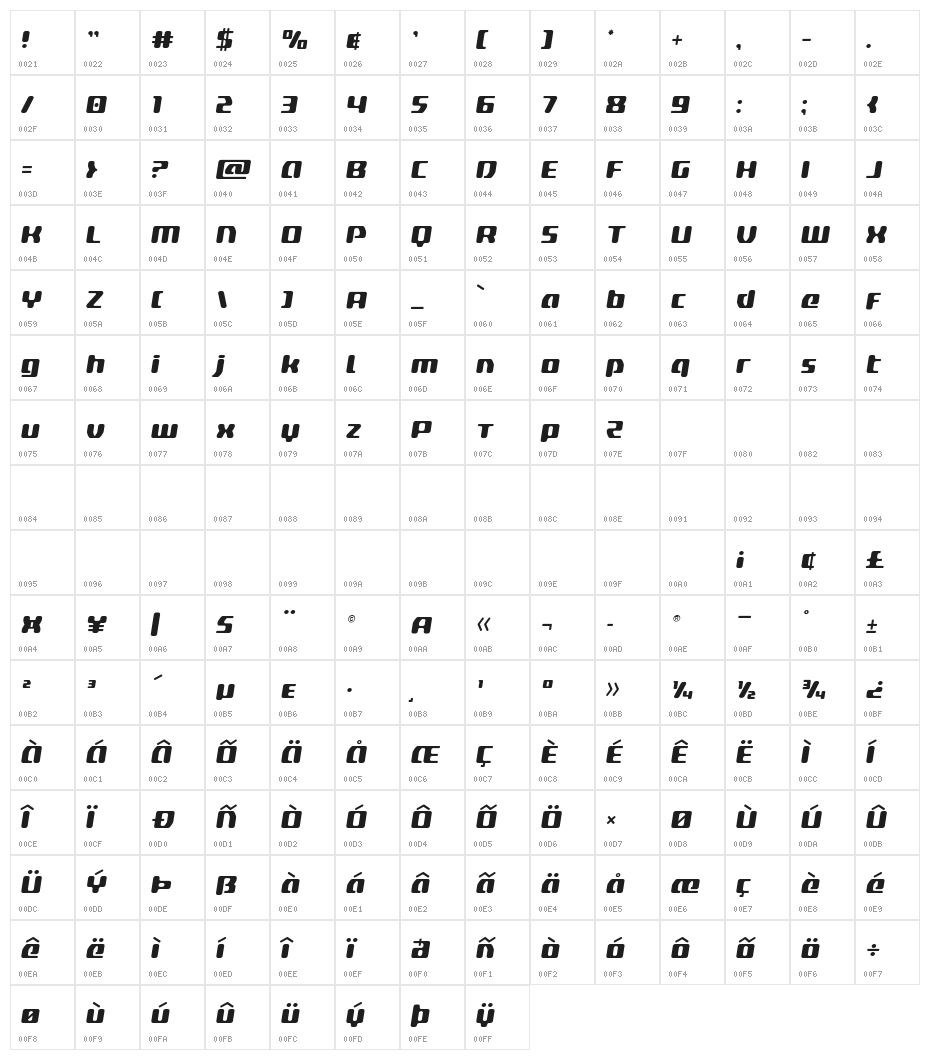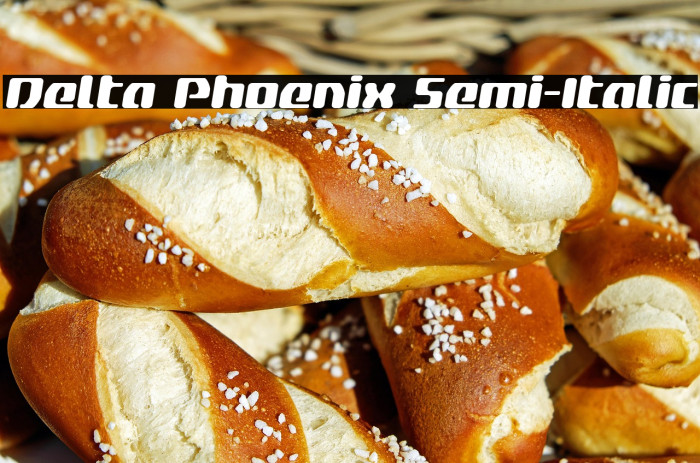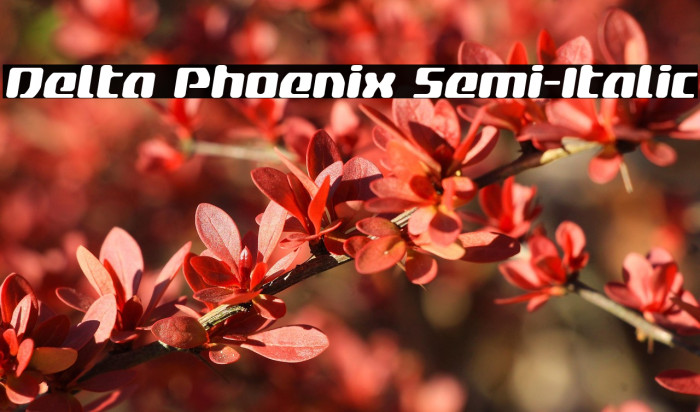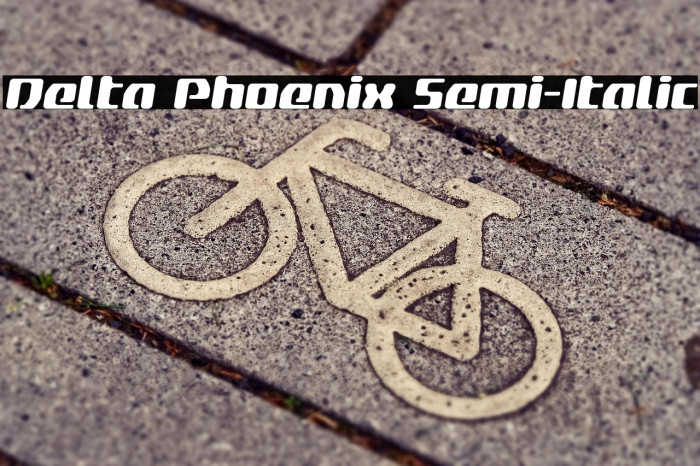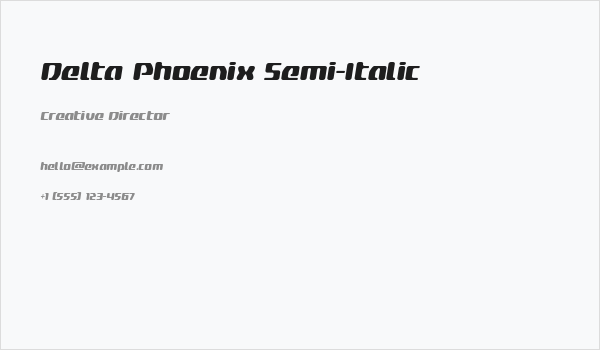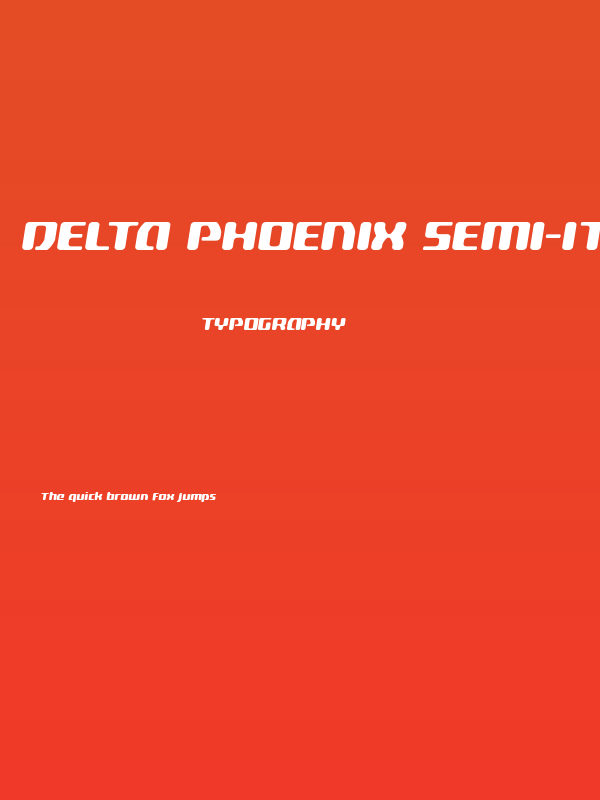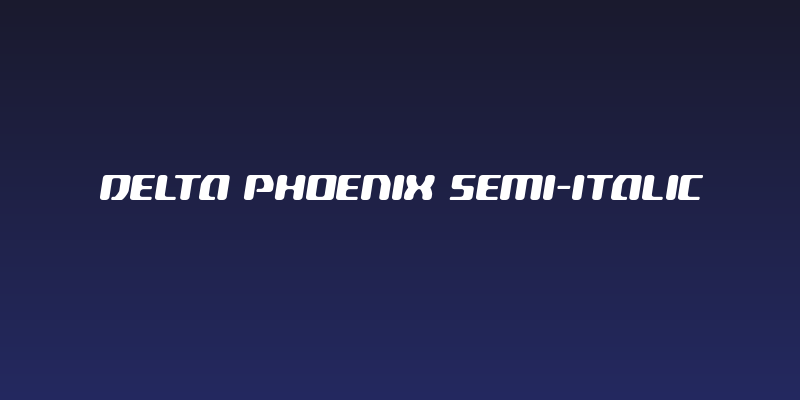
Delta Phoenix Semi-Italic Font
Delta Phoenix Semi-Italic Description
This typeface exhibits a bold and dynamic style with a semi-italic slant, giving it a sense of motion and energy. The characters are rounded with smooth curves and a consistent stroke width, contributing to a modern and sleek appearance. The uppercase and lowercase letters maintain a uniform height, enhancing readability. The numerals are clear and distinct, matching the overall aesthetic of the alphabet. Special characters are designed with the same attention to detail, ensuring they integrate seamlessly with the rest of the font. This font's boldness and slight italic angle make it suitable for impactful and eye-catching designs.
Proposed ProjectsIdeal for branding, sports team logos, dynamic posters, and modern web design.